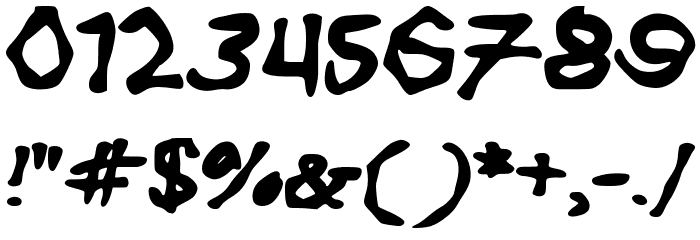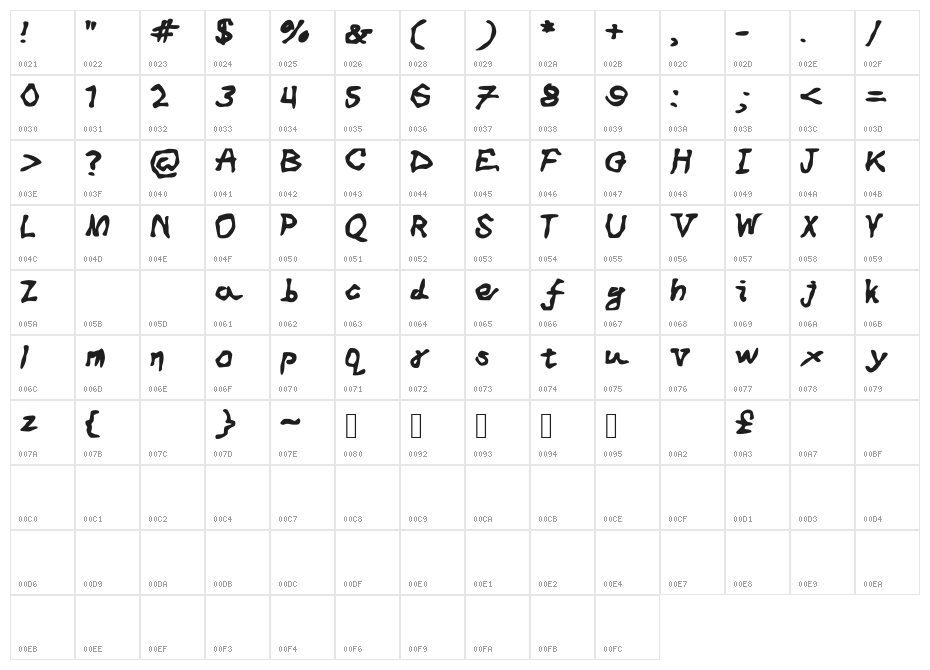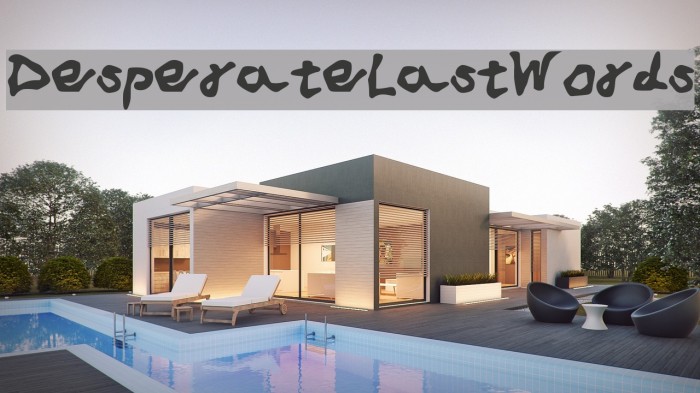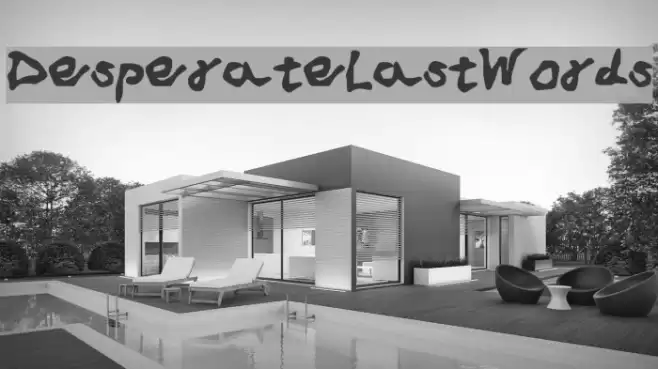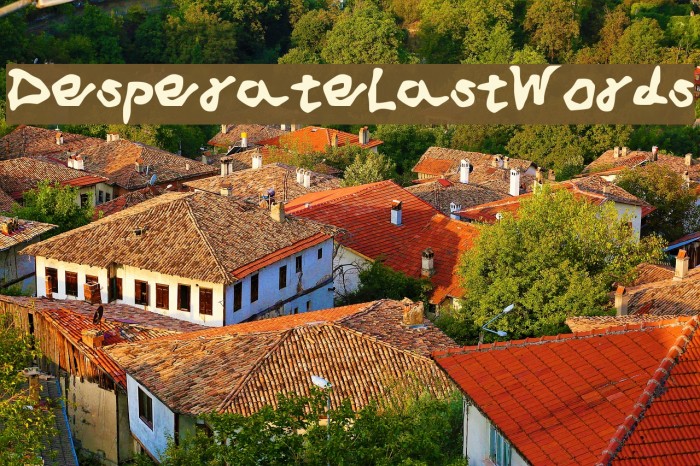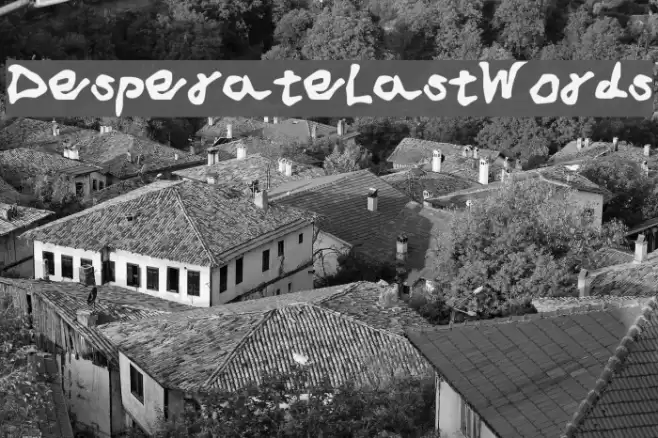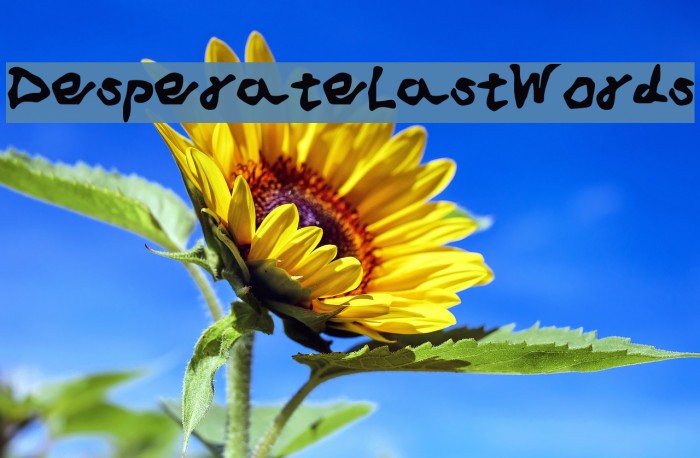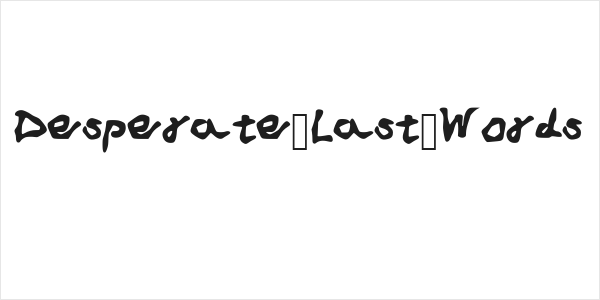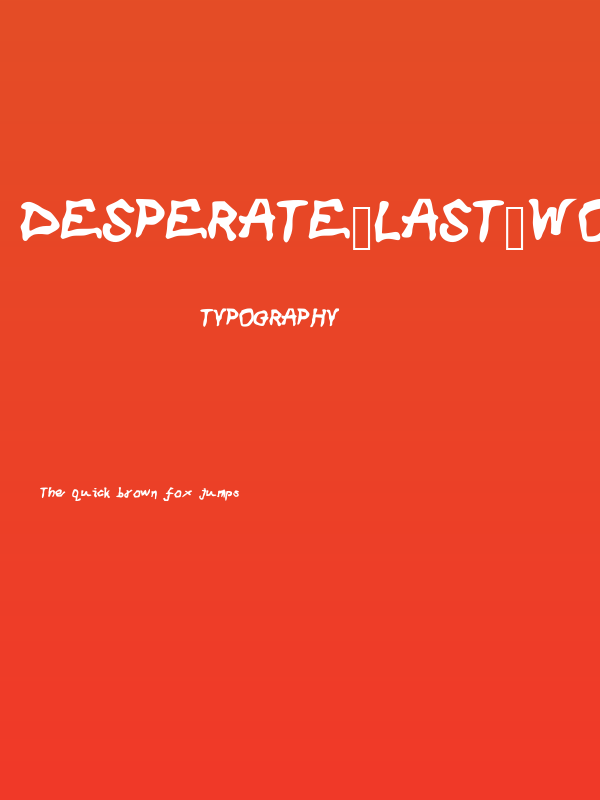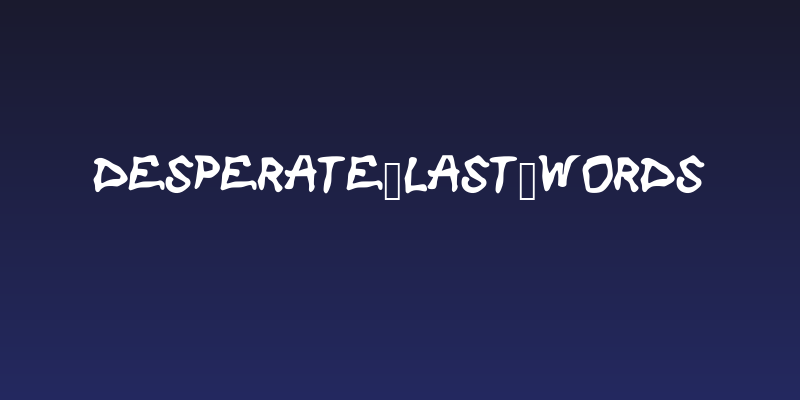
Desperate_Last_Words Font
Desperate_Last_Words Description
This font features a bold, hand-drawn style that exudes a sense of urgency and expressiveness. The characters are irregular and slightly distorted, giving them a unique, artistic flair. The uppercase and lowercase letters maintain a consistent style, with rounded edges and a playful, almost chaotic appearance. The numbers and special characters follow the same design principles, ensuring a cohesive look across all elements. This font's distinctiveness makes it stand out, capturing attention with its dynamic and unconventional form.
| Use Case | Headlines, Posters, Creative Designs |
| Proposed Projects | Ideal for creative projects such as posters, album covers, or any design requiring a bold, artistic touch. |